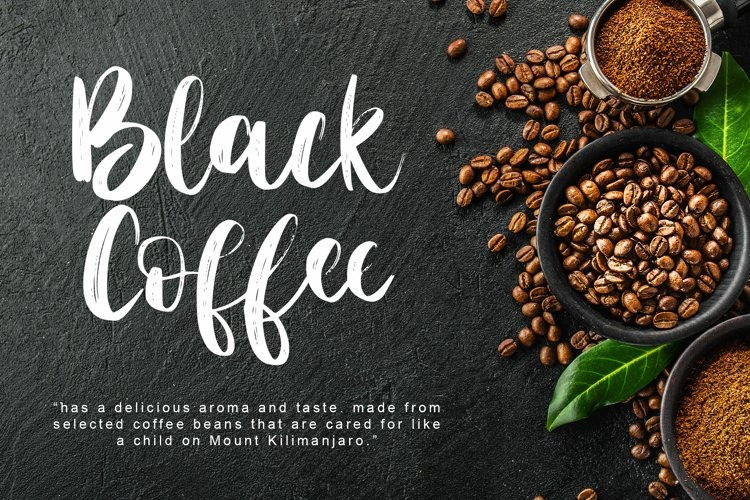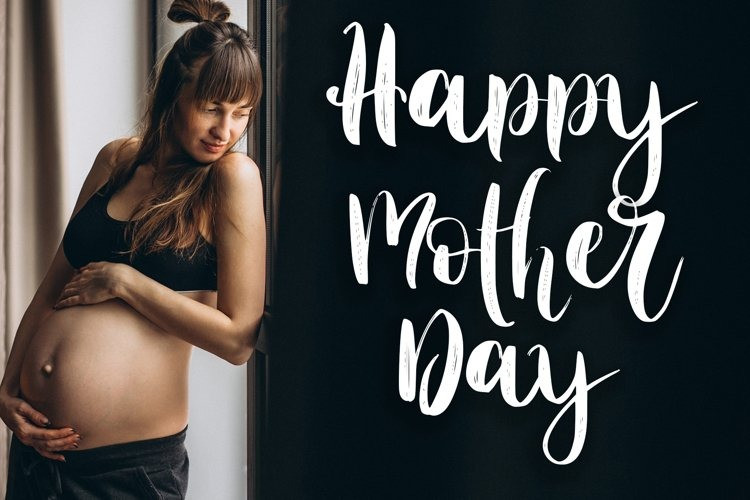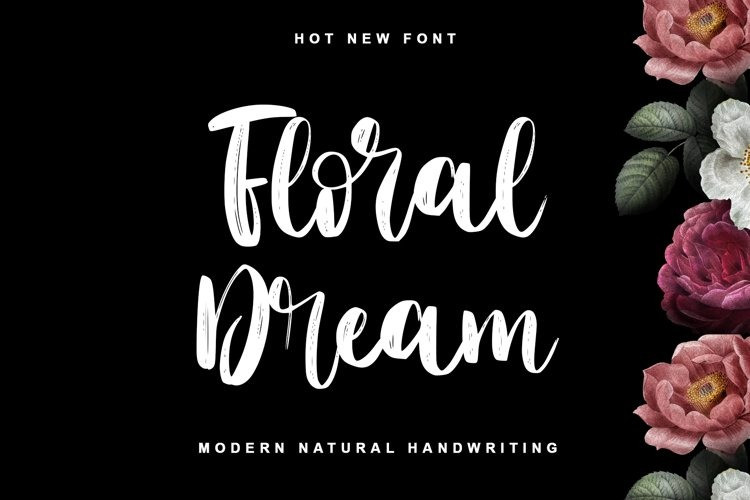
Musterion Typeface
Font bursting with energy, quick strokes and sharp edges. Ideal for loud messages. Very interesting to use for logos, name tags, handwritten quotes, product packaging, merchandise, social media & greeting cards .Also, ideal to make t-shirts design and other clothing products.